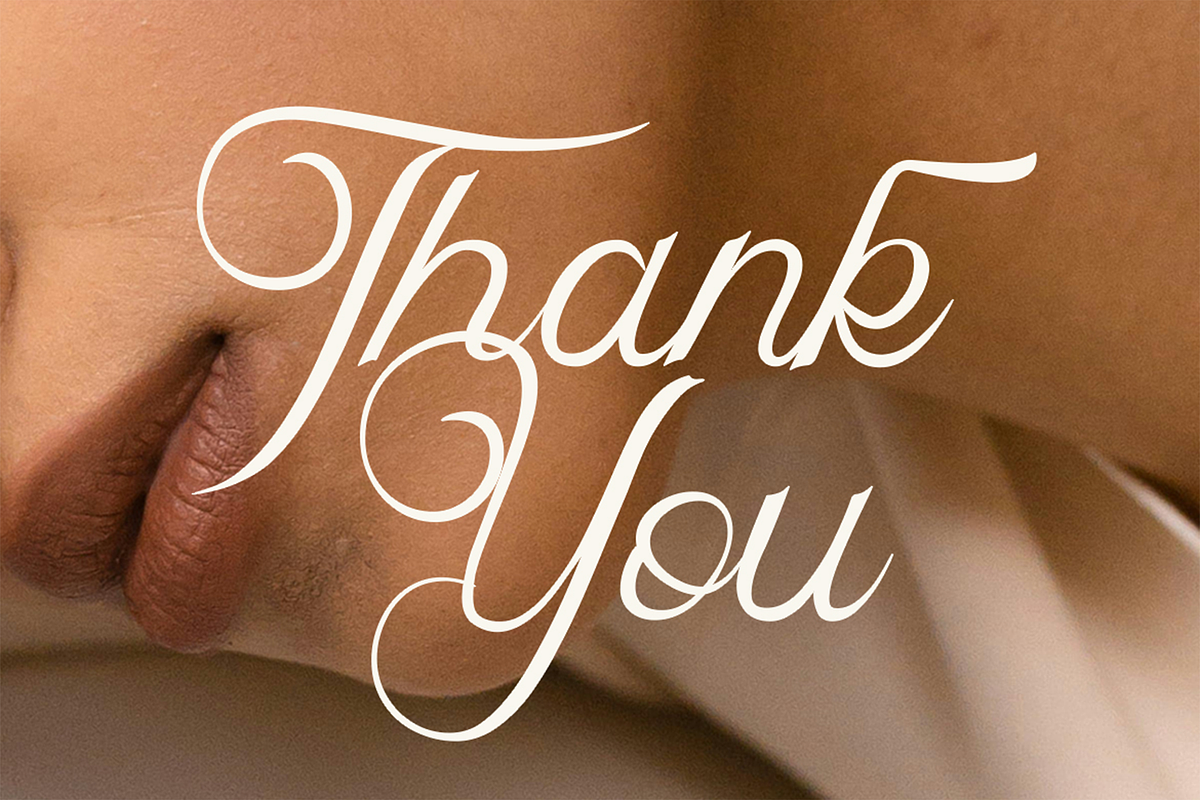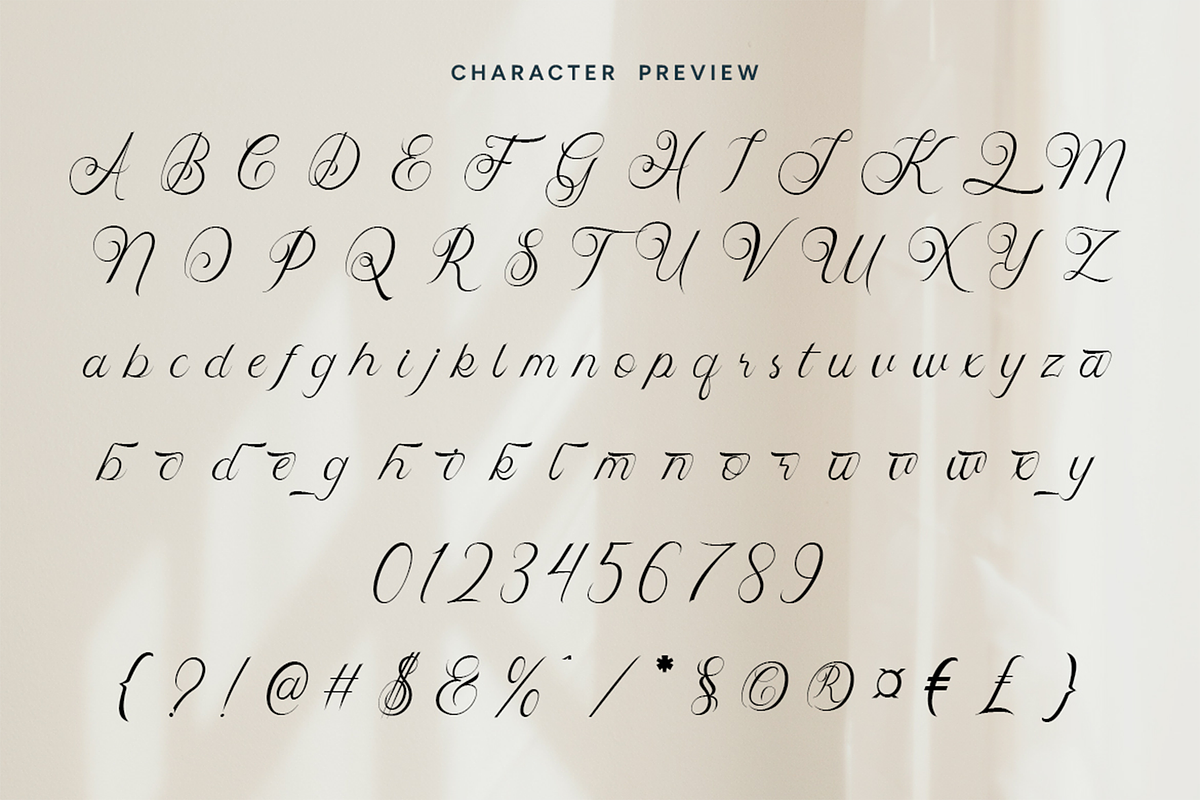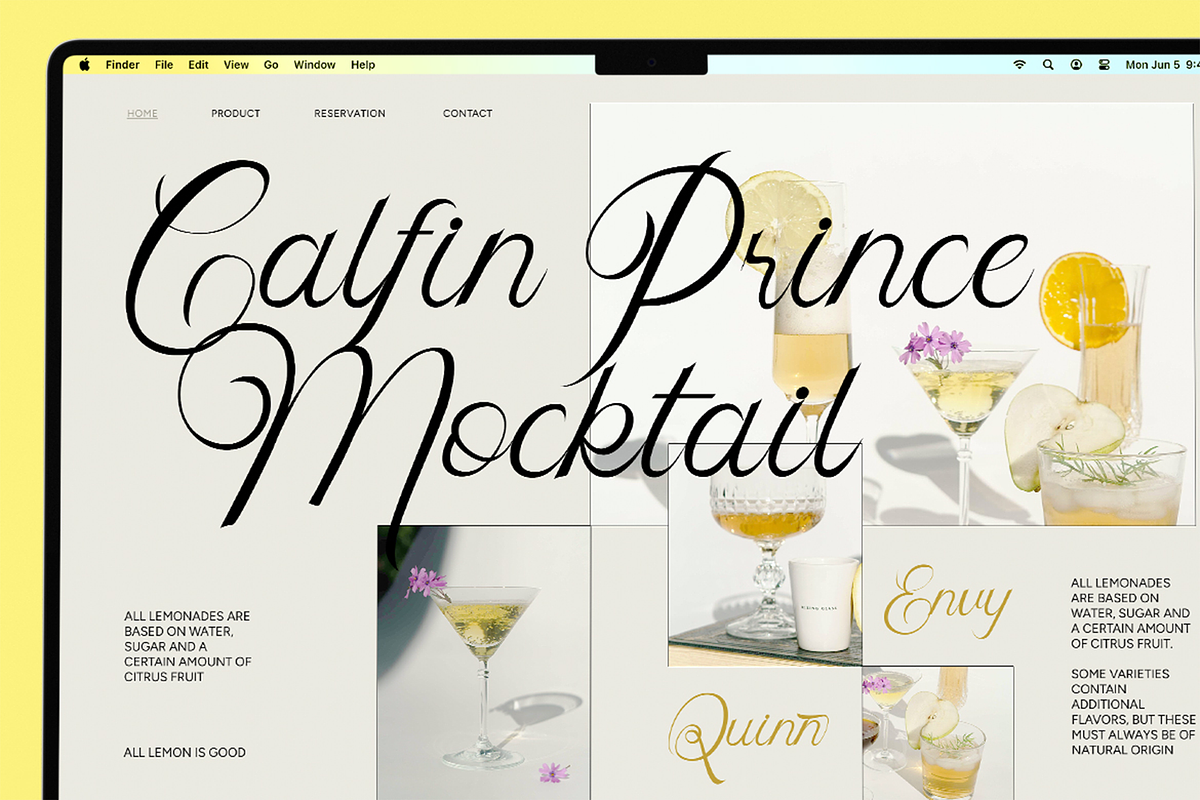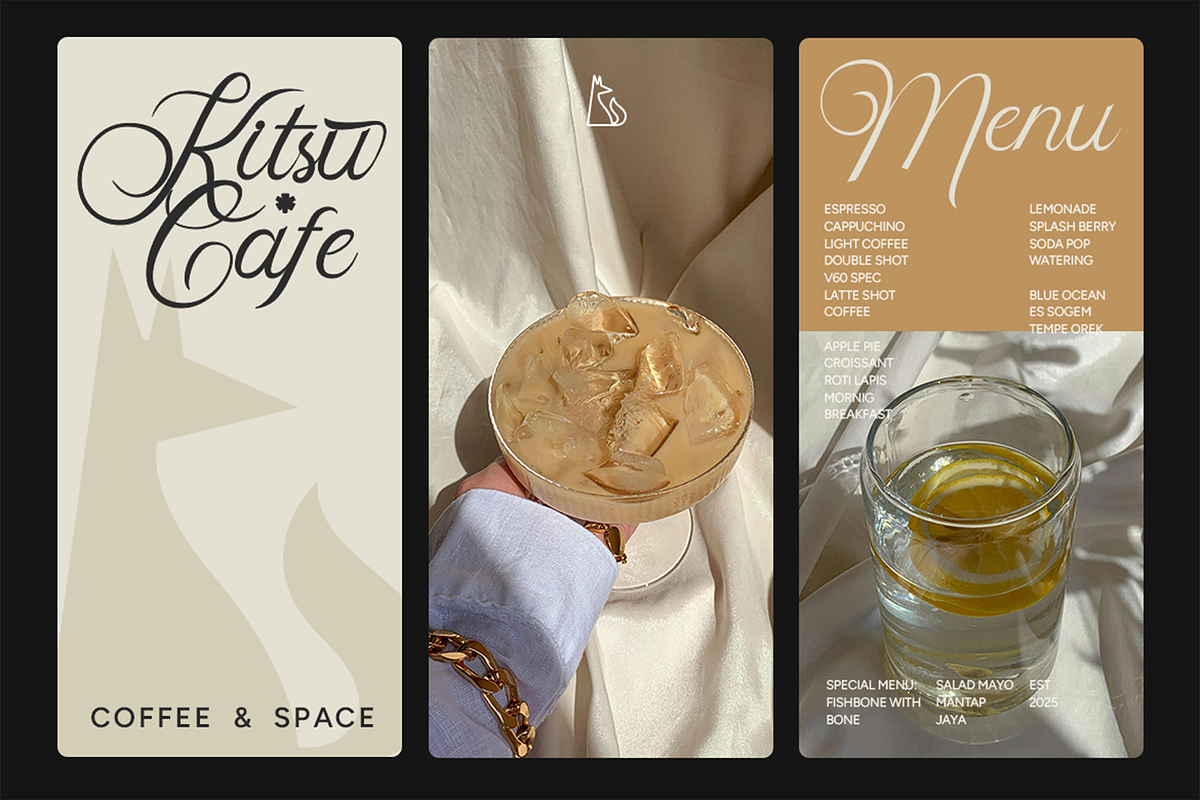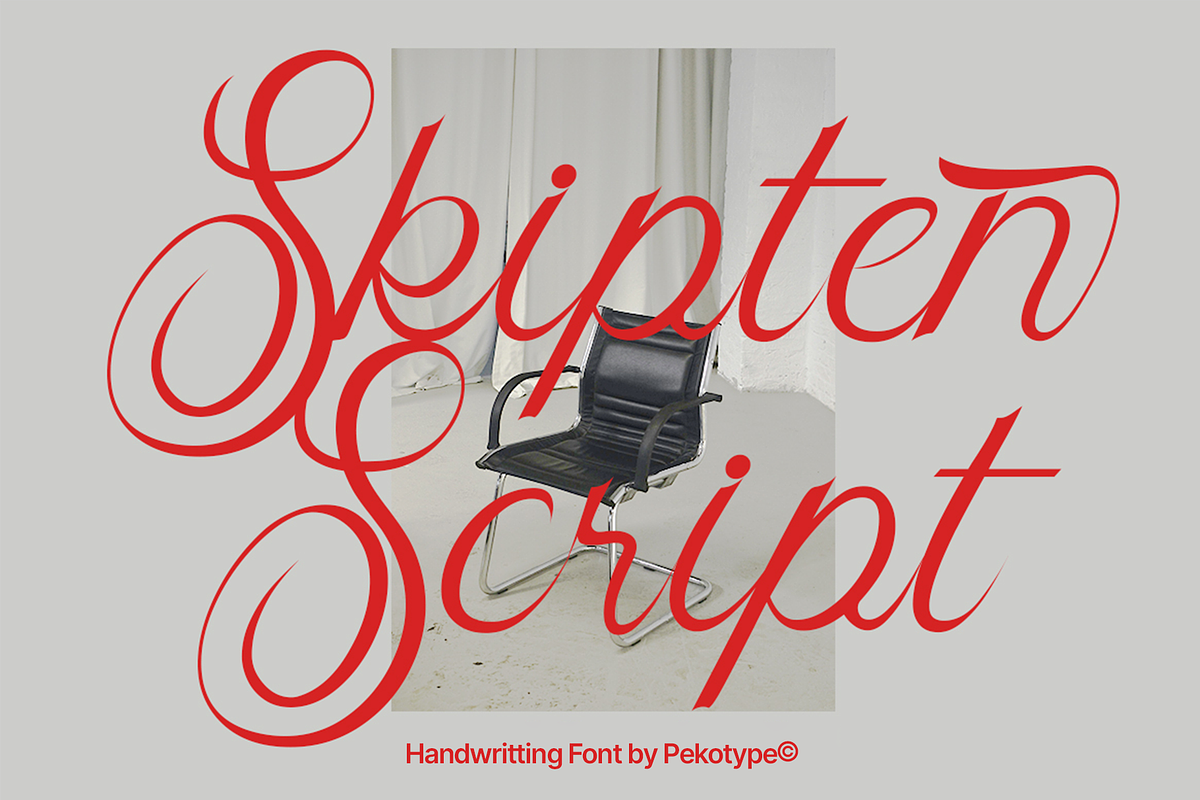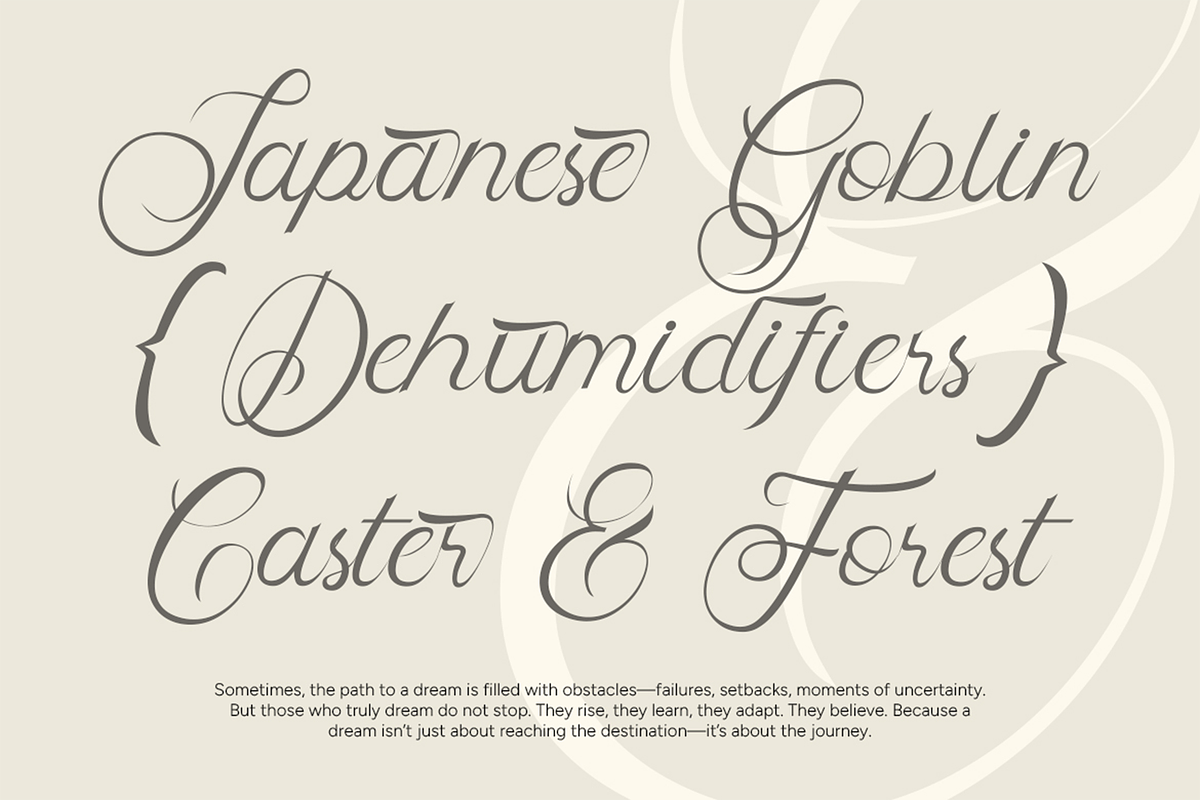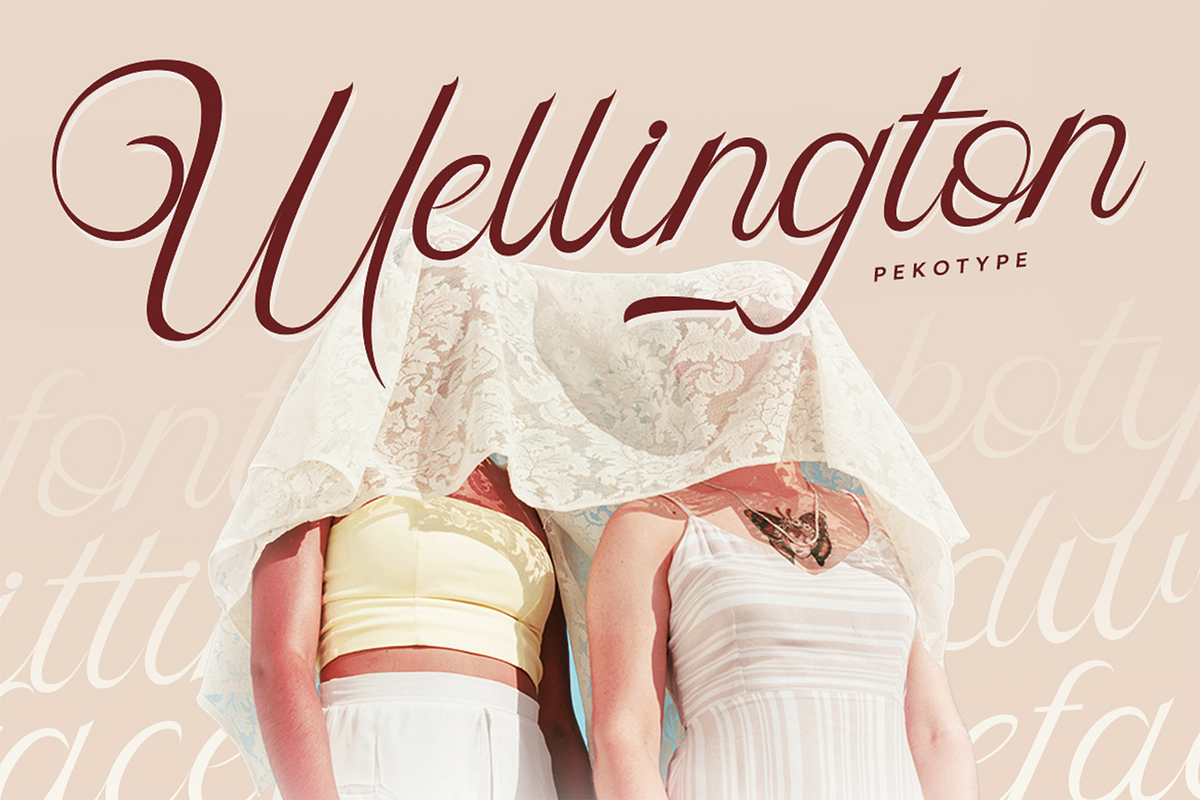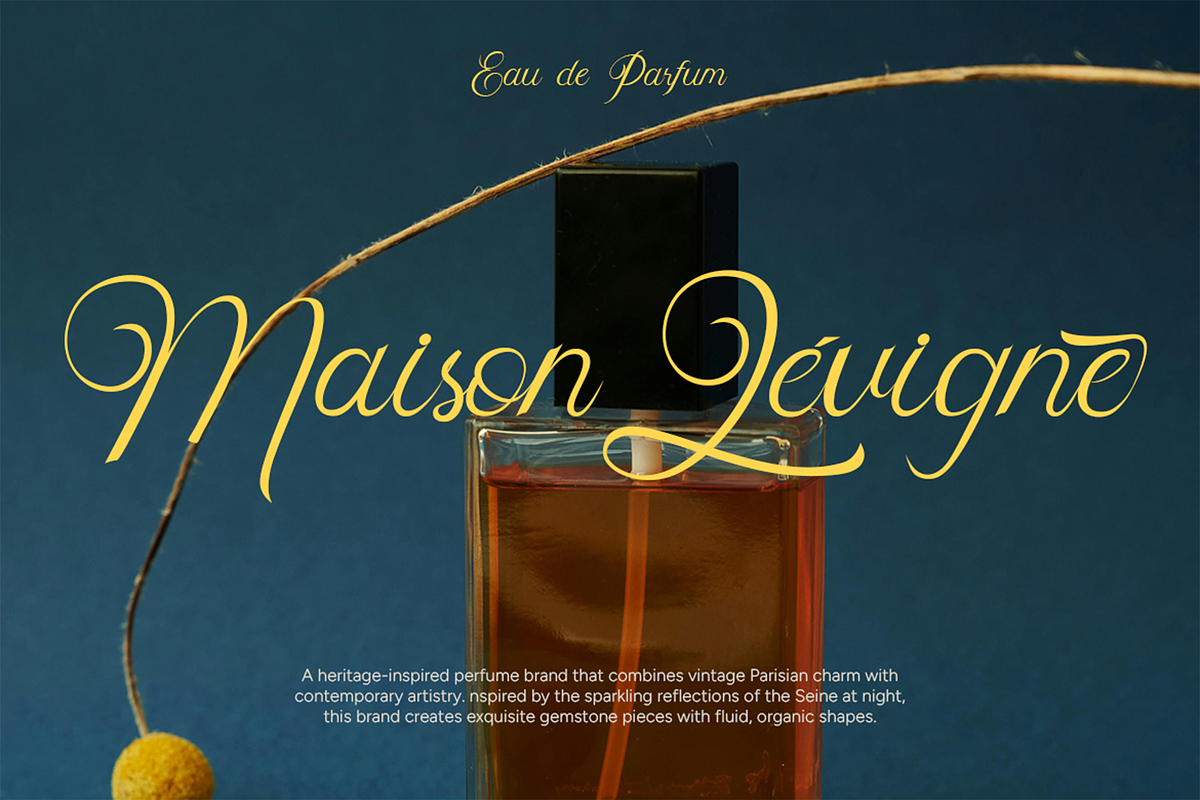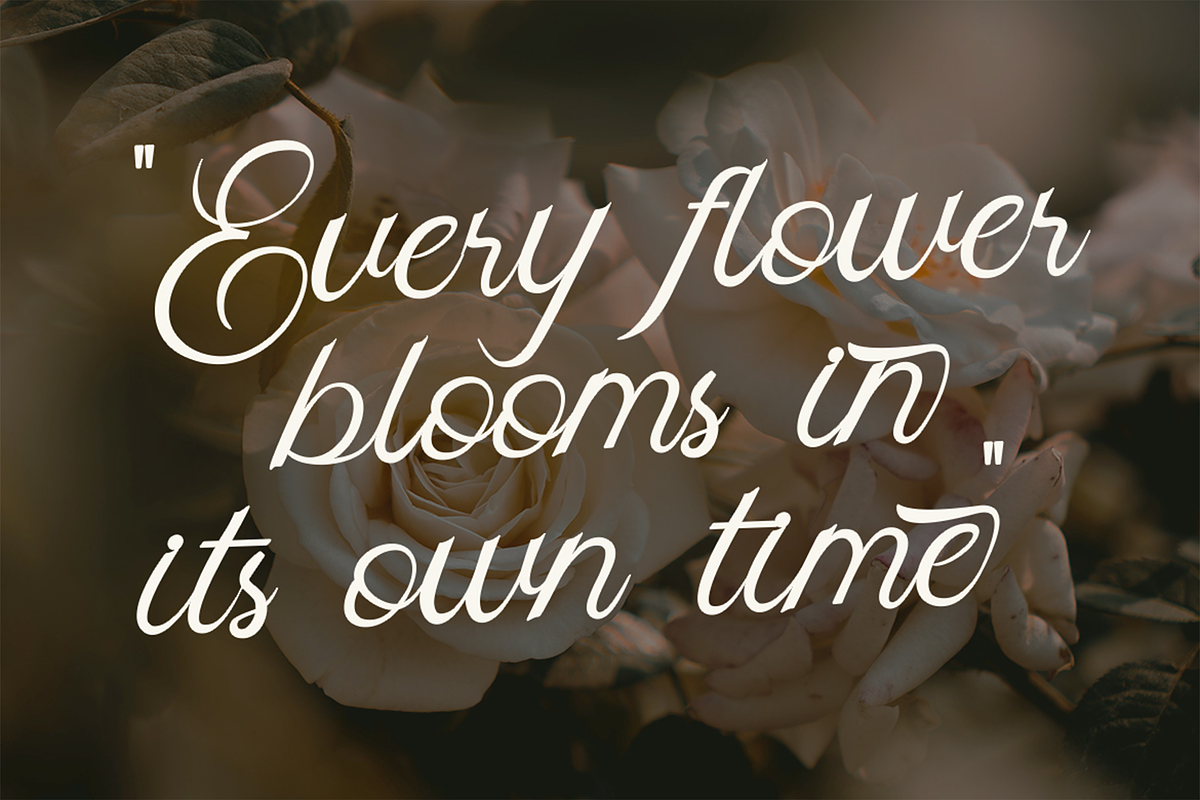
Skipten - Script Handwritten Font
Introducing SKIPTEN – A Classic & Elegant Script Font
SKIPTEN is a beautifully crafted script font that combines cursive elegance with a classic touch, making it perfect for branding, logos, wedding designs, merchandise, and social media aesthetics. With its fluid strokes and unique letterforms, SKIPTEN brings sophistication and personality to any project.
Designed for those who appreciate timeless beauty, SKIPTEN enhances invitations, packaging, and creative designs with effortless charm. Whether creating a luxurious brand identity or adding a personal touch to your artwork, this font delivers style and authenticity.